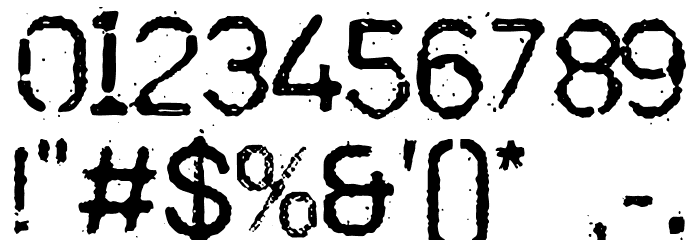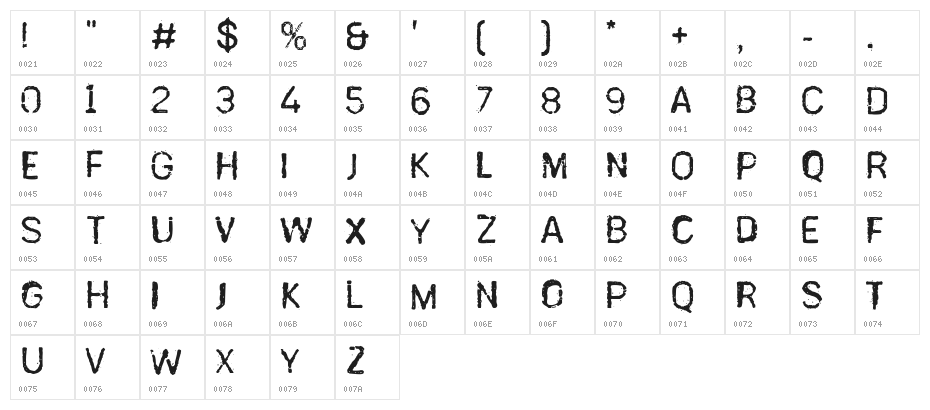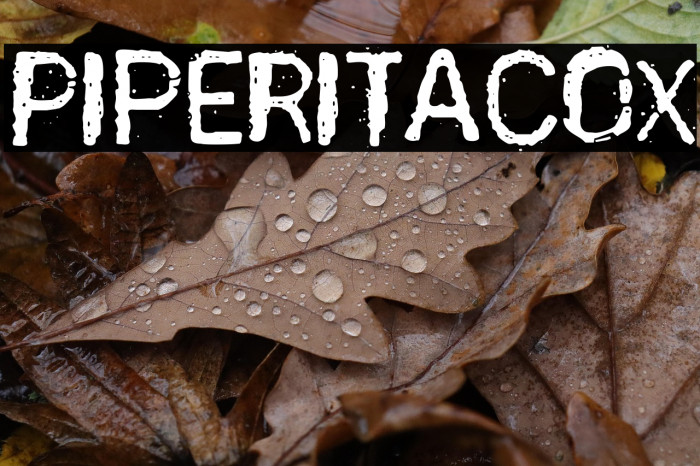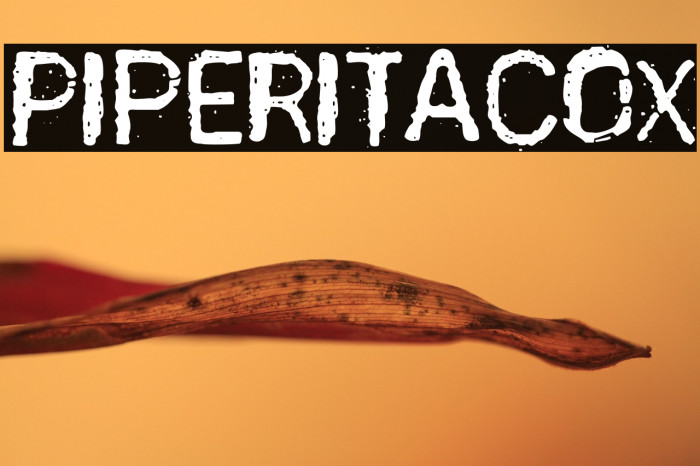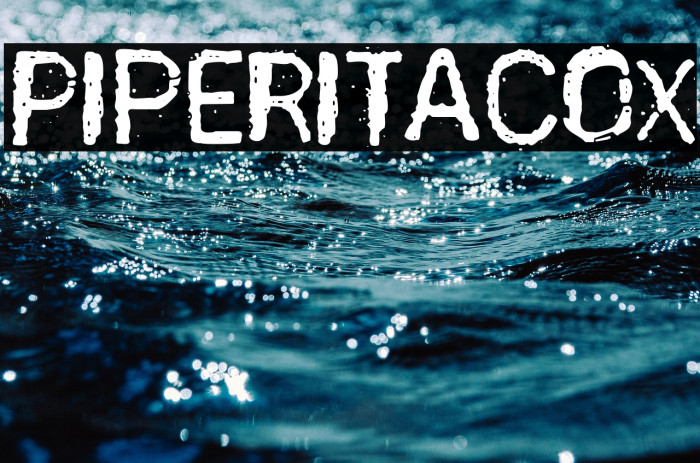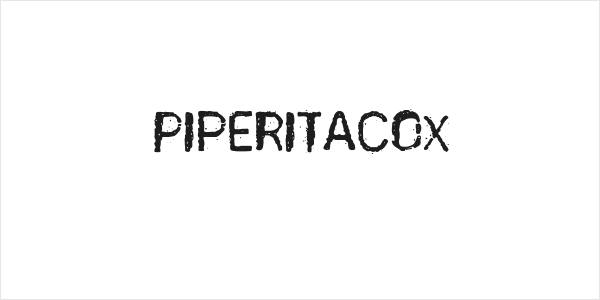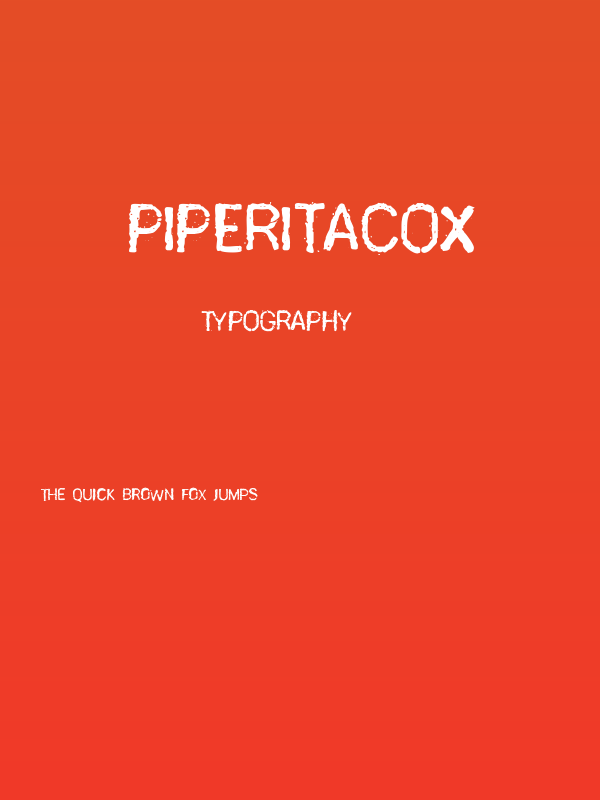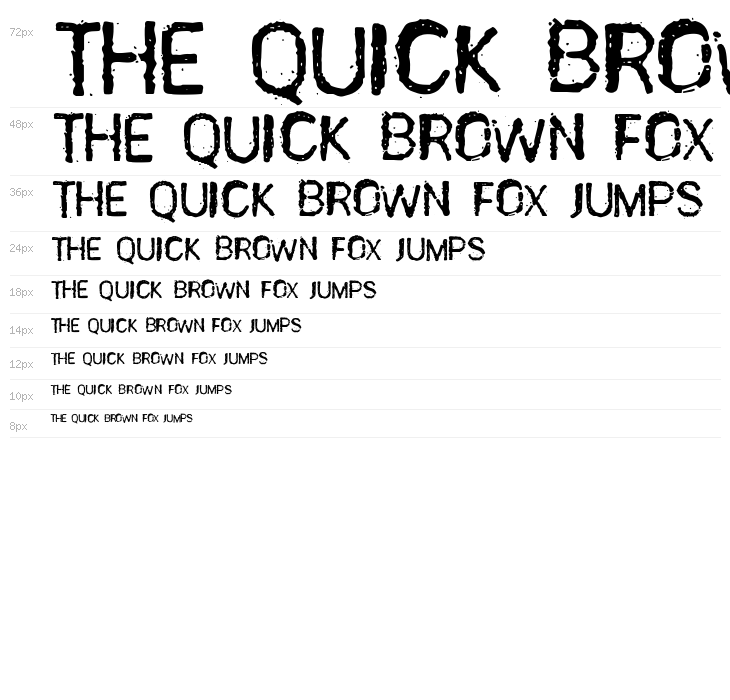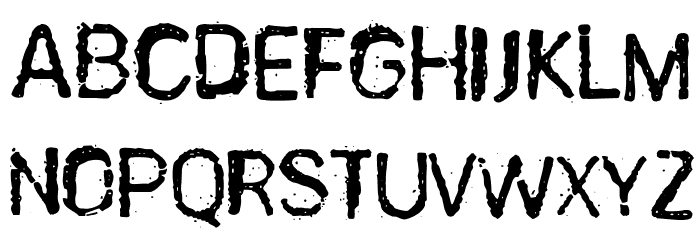
PiperitaCox Font
PiperitaCox Description
This font features a distressed, grunge style with a textured appearance that mimics ink splatters or worn-out print. The characters are bold and impactful, with irregular edges that give a raw, organic feel. The uppercase and lowercase letters maintain a consistent height, while the numerals and special characters follow the same rugged aesthetic. This font is ideal for projects that require a bold statement or an edgy, artistic touch.
Overall StyleGrunge, Artistic
Proposed ProjectsIdeal for album covers, posters, streetwear branding, or any project needing an edgy, artistic vibe.